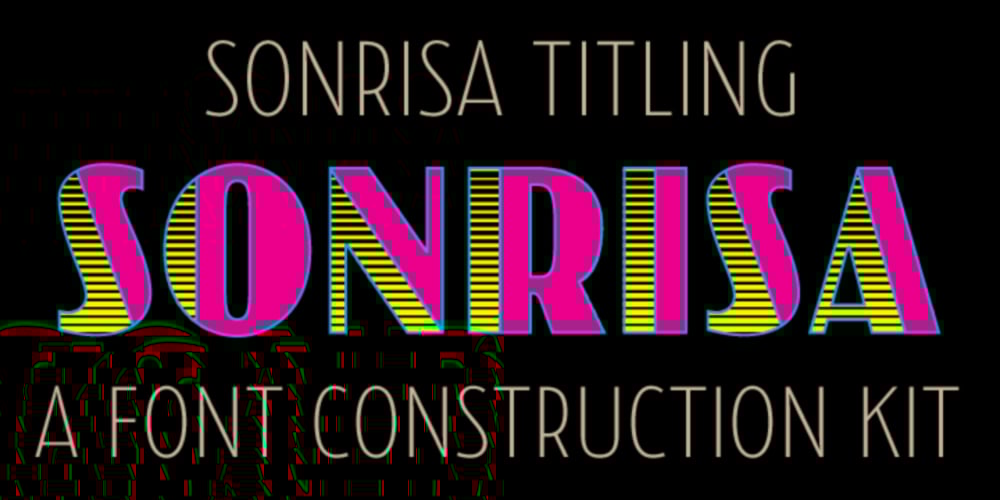
Sonrisa
Sonrisa font
Sonrisa Font Family was designed by Jason Castle and published by CastleType. Sonrisa contains 8 styles and family package options. Sonrisa is a design that evolved from my sketches of the skeletal structure of Jakob Erbar’s Koloss, trying to discover its underlying essence without all the contrast and bulkiness of the original design. Sonrisa Thin was the resulting font, from which the other weights of the family were developed. Gentle curves, open counters, generous x-height, and sleekly tapered terminals give Sonrisa a very legible, modern, elegant appearance. When she saw the first draft of this typeface, the smile on my friend Jennifer’s face gave me the idea to call it “Sonrisa” (Spanish for “smile”). Jennifer, a clinical psychologist, described Sonrisa’s personality as: “happy, clean, clear, open, joyful, spacious, playful, calm. I can see it being used for body product lines such as oils and lotions. Can see it being used in home/travel magazines or even Architectural Digest. Yoga magazine, definitely.” Sonrisa is what some foundries call a “Pro” typeface family with all the bells and whistles that provide typographic versatility: true small caps, oldstyle numerals, arbitrary fractions, discretionary ligatures, and other powerful OpenType features. All fonts in the family, except Sonrisa Titling, support most European languages, including modern Greek and languages that use the Cyrillic Alphabet. (Cyrillic glyphs designed in consultation with Ukrainian type designer, Sergiy S. Tkachenko.) Sonrisa is available in the original Thin, monoline version as well as six weights (Light, Regular, Medium, Bold, Extra Bold, Black), and a Titling font that is essentially a display font construction kit. If you enjoy using Sonrisa even half as much as I enjoyed creating it, then I know you will have a “sonrisa” (smile) on your face!